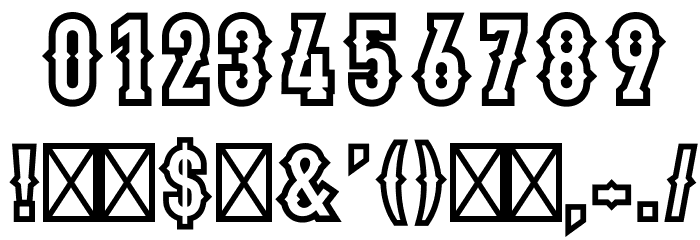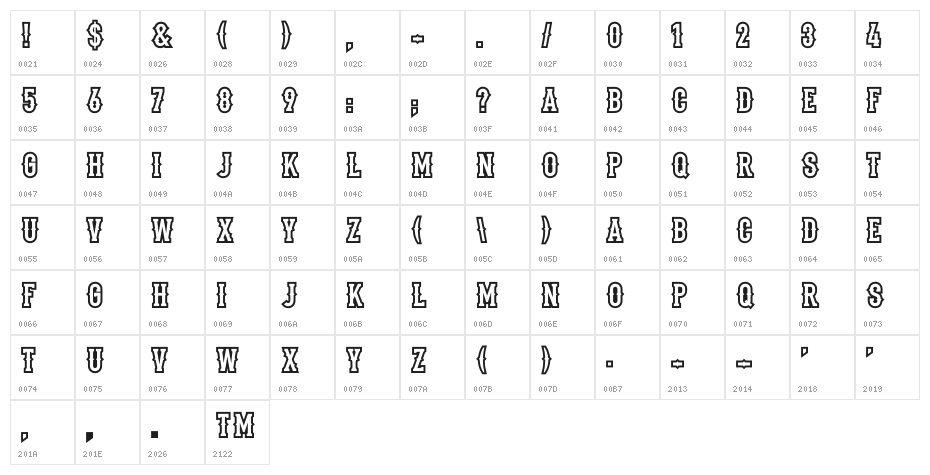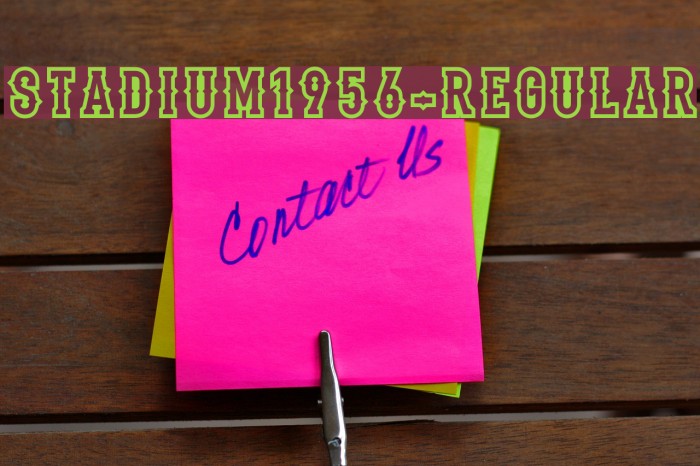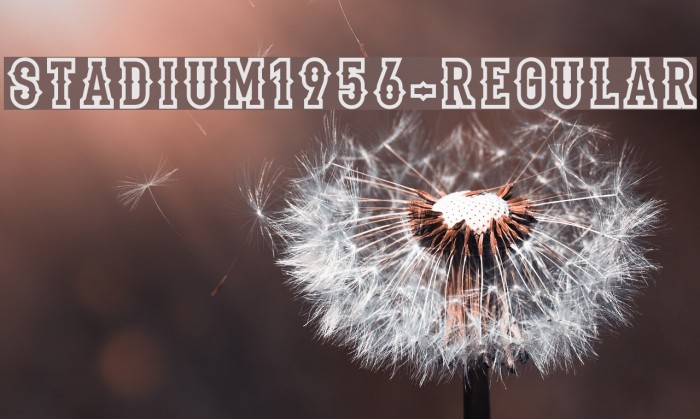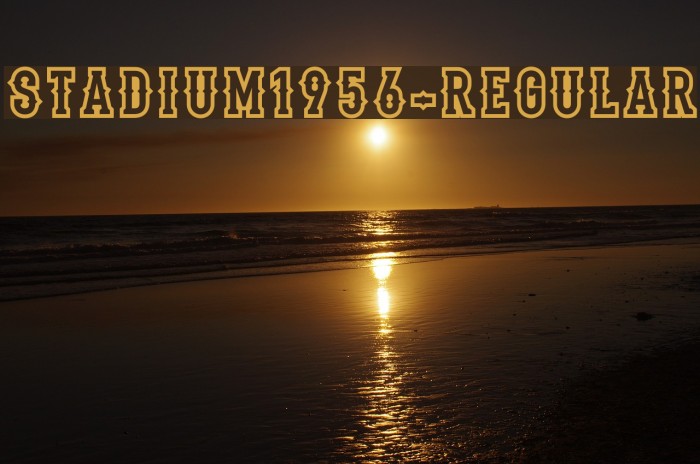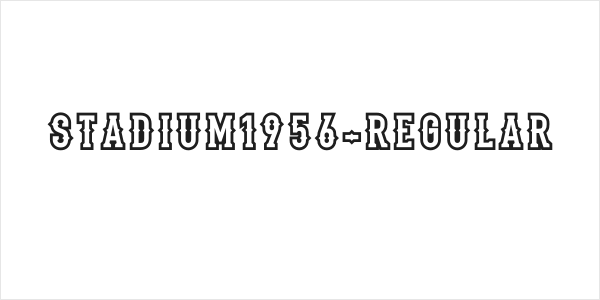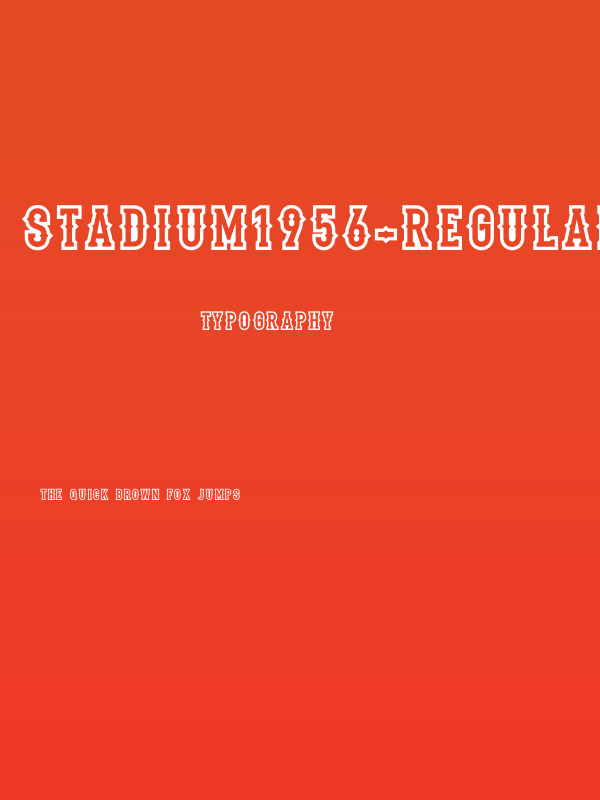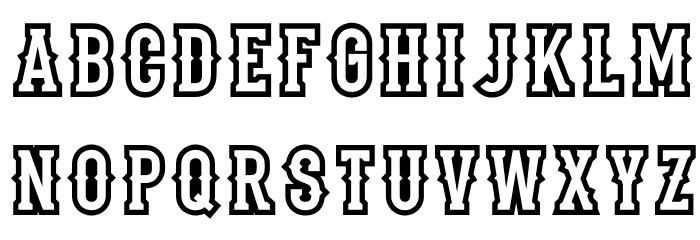
Stadium1956-Regular Font
Stadium1956-Regular Description
This font features a bold, decorative style with a strong presence, characterized by thick, blocky letterforms and a double-outline effect that adds depth and dimension. The uppercase letters are uniform in height, with sharp angles and clean lines that convey a sense of strength and stability. The numbers and special characters maintain the same bold aesthetic, ensuring consistency across all elements. This font is particularly eye-catching and is designed to stand out, making it ideal for attention-grabbing headlines or titles.
| Proposed Projects | Ideal for sports branding, event posters, vintage-themed designs, and any project requiring a bold, impactful typeface. |